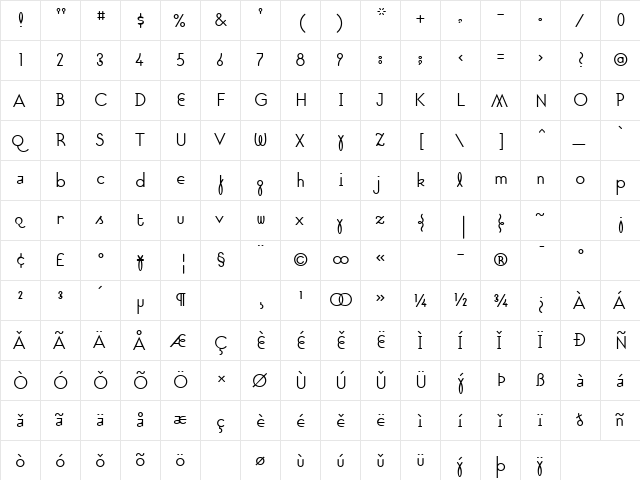
SuburbanLight Regular
Design Context for SuburbanLight Typeface
SuburbanLight offers clean, dependable letterforms without strong stylistic allegiance, making it a practical choice for designers who need flexibility. The delicate stroke weight brings airiness and refinement to layouts.